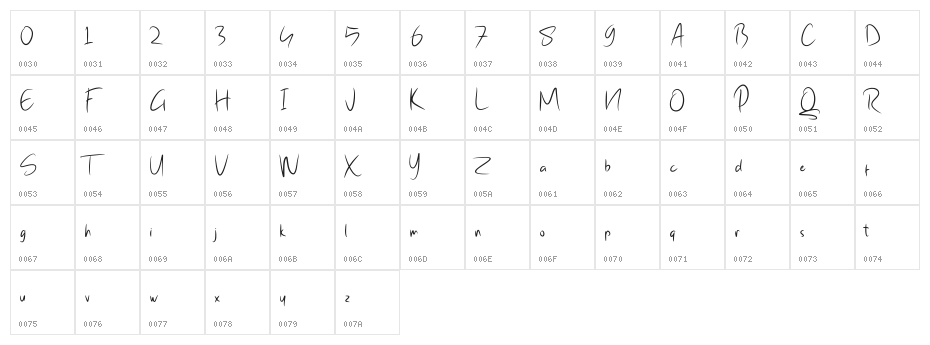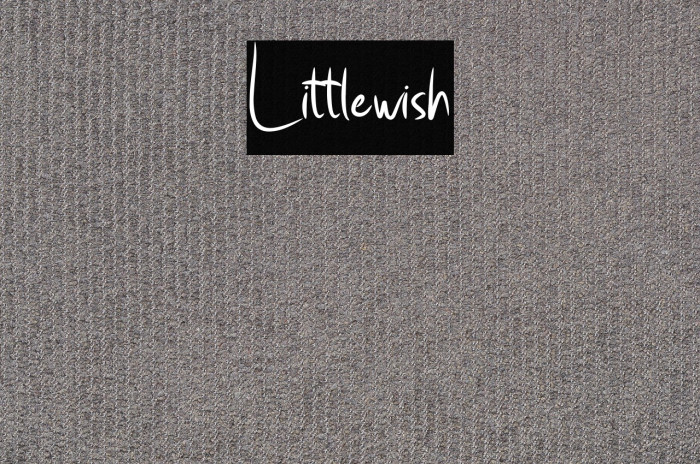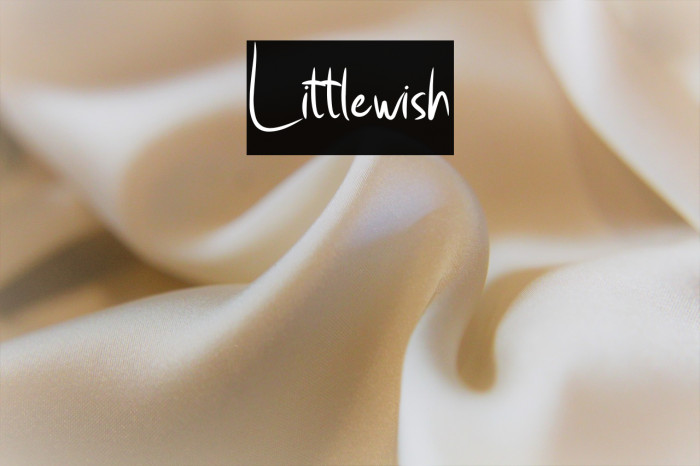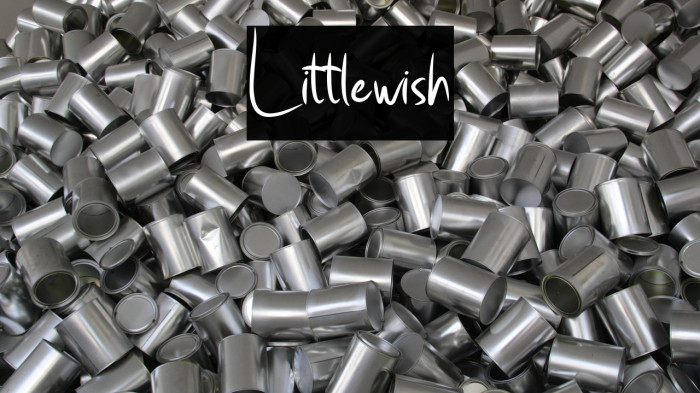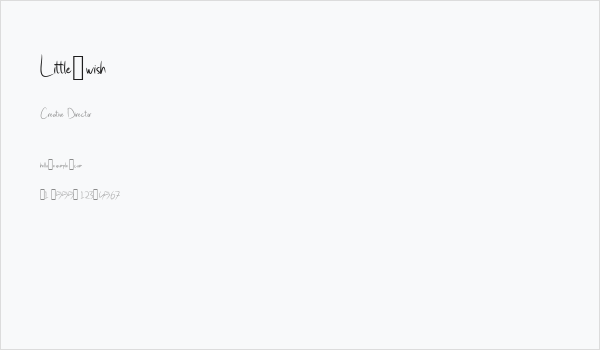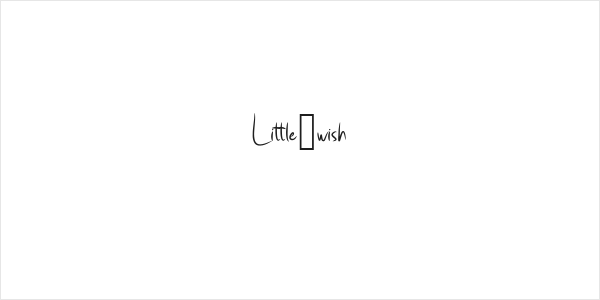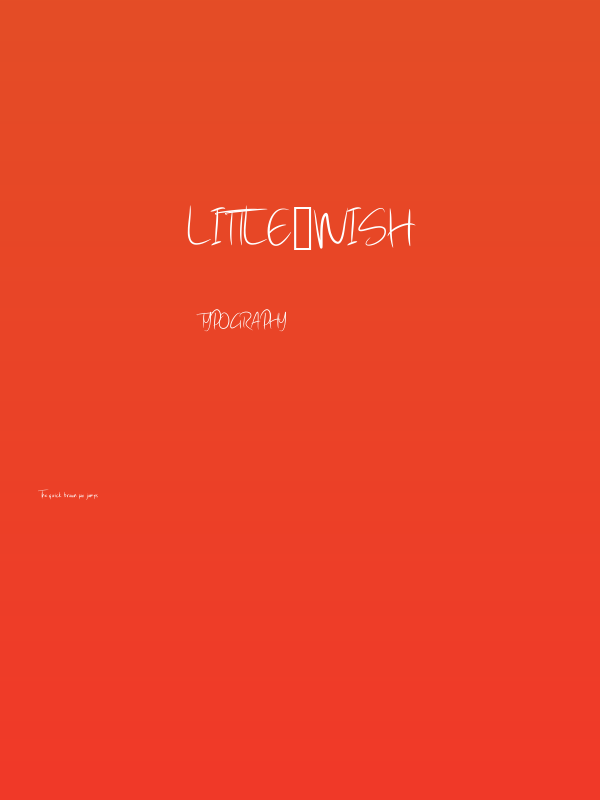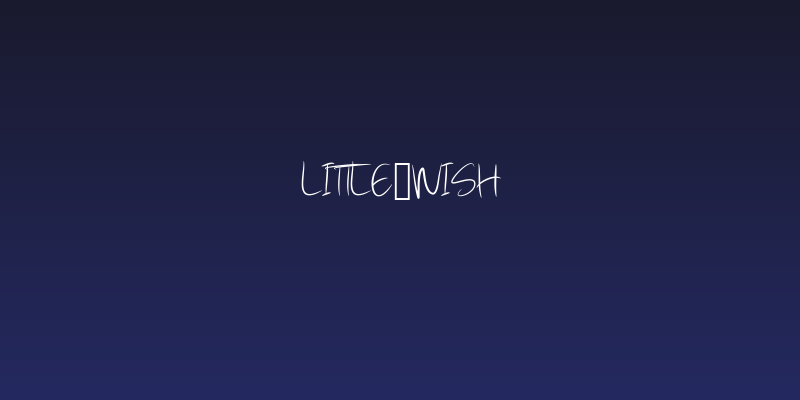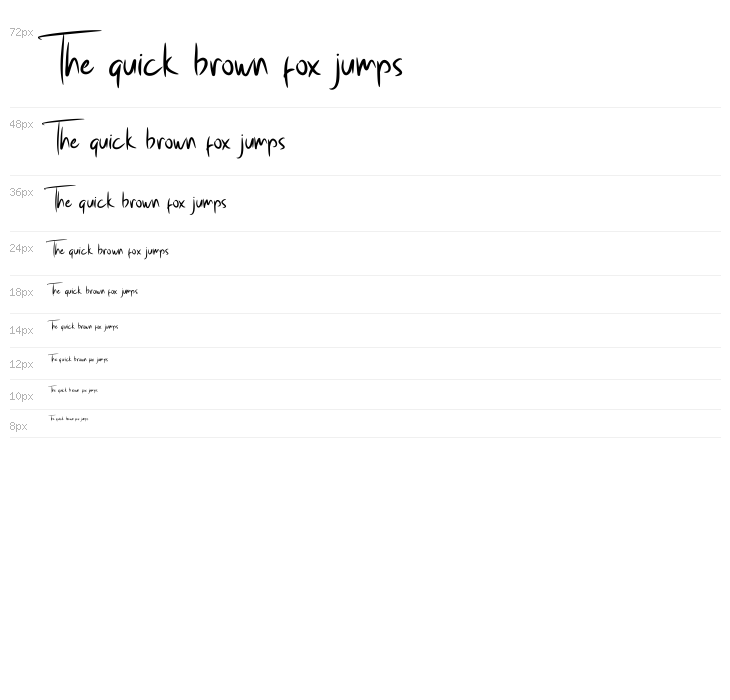
Little_wish Font
Little_wish Description
This font features a dynamic and energetic style with a handwritten appearance. The letters are characterized by their fluid, sweeping strokes and varying line thickness, giving it a lively and expressive feel. The uppercase letters are bold and dramatic, while the lowercase letters maintain a consistent flow, enhancing readability. The numbers follow the same energetic style, making them stand out. Special characters are creatively integrated, maintaining the overall aesthetic. This font is perfect for projects that require a personal touch or a sense of movement and creativity.
| Proposed Projects | Ideal for greeting cards, invitations, artistic posters, and branding that requires a personal touch. |